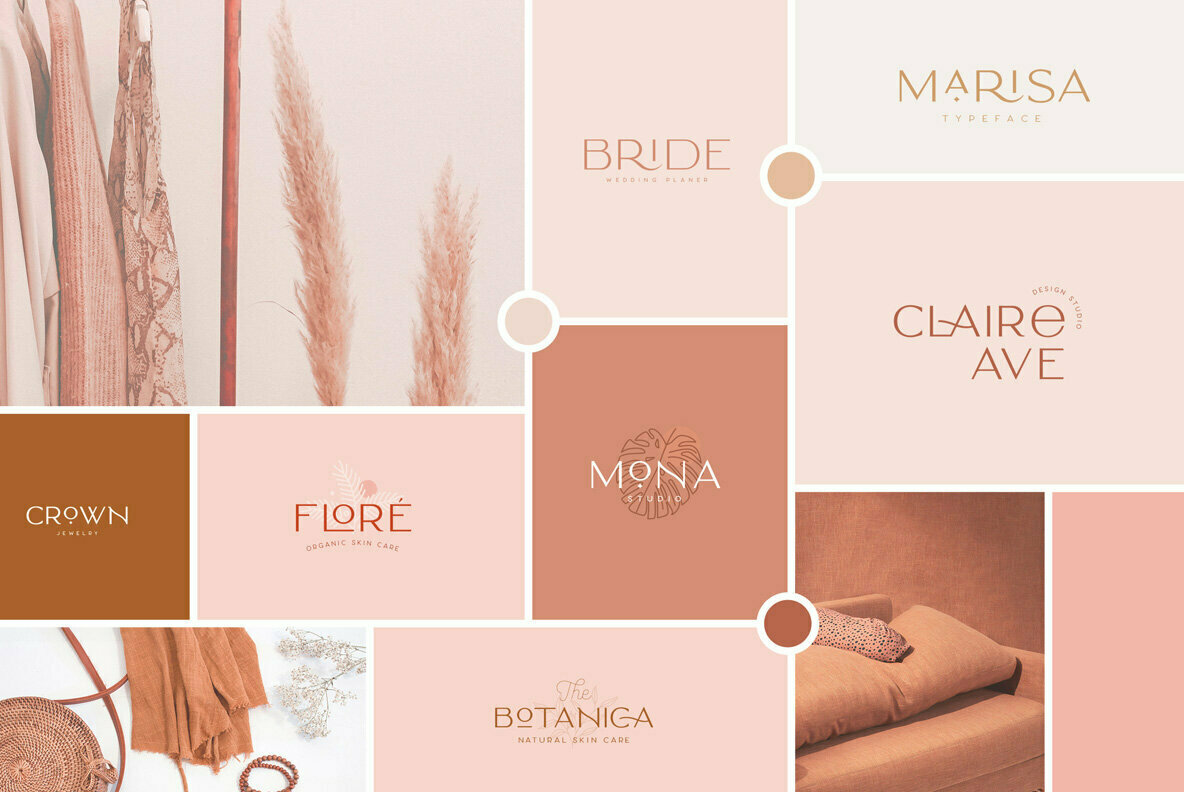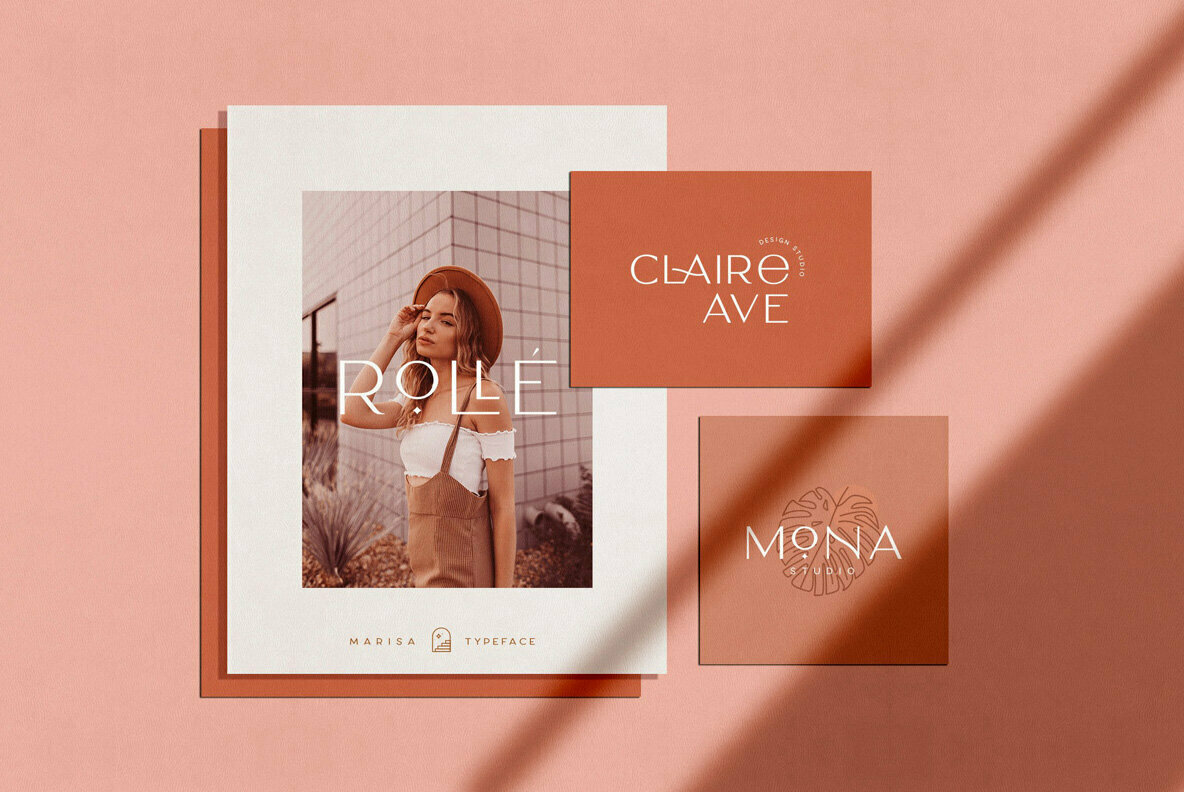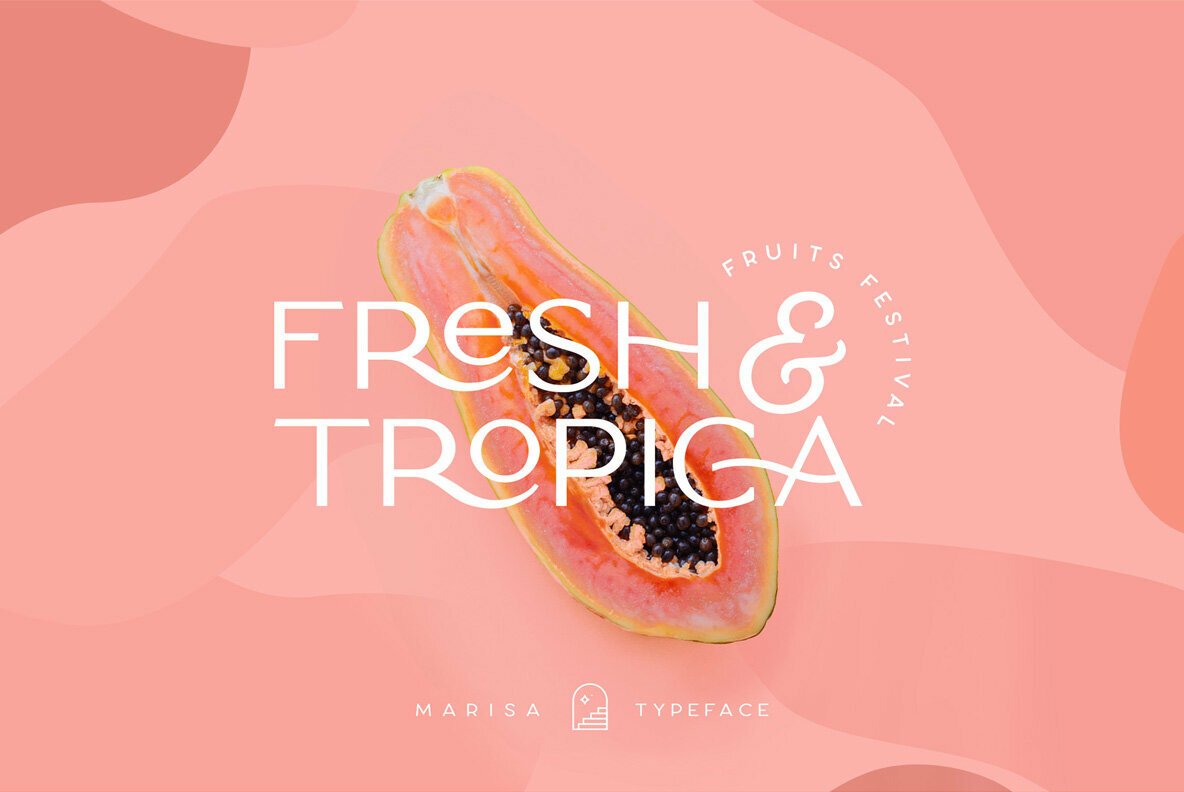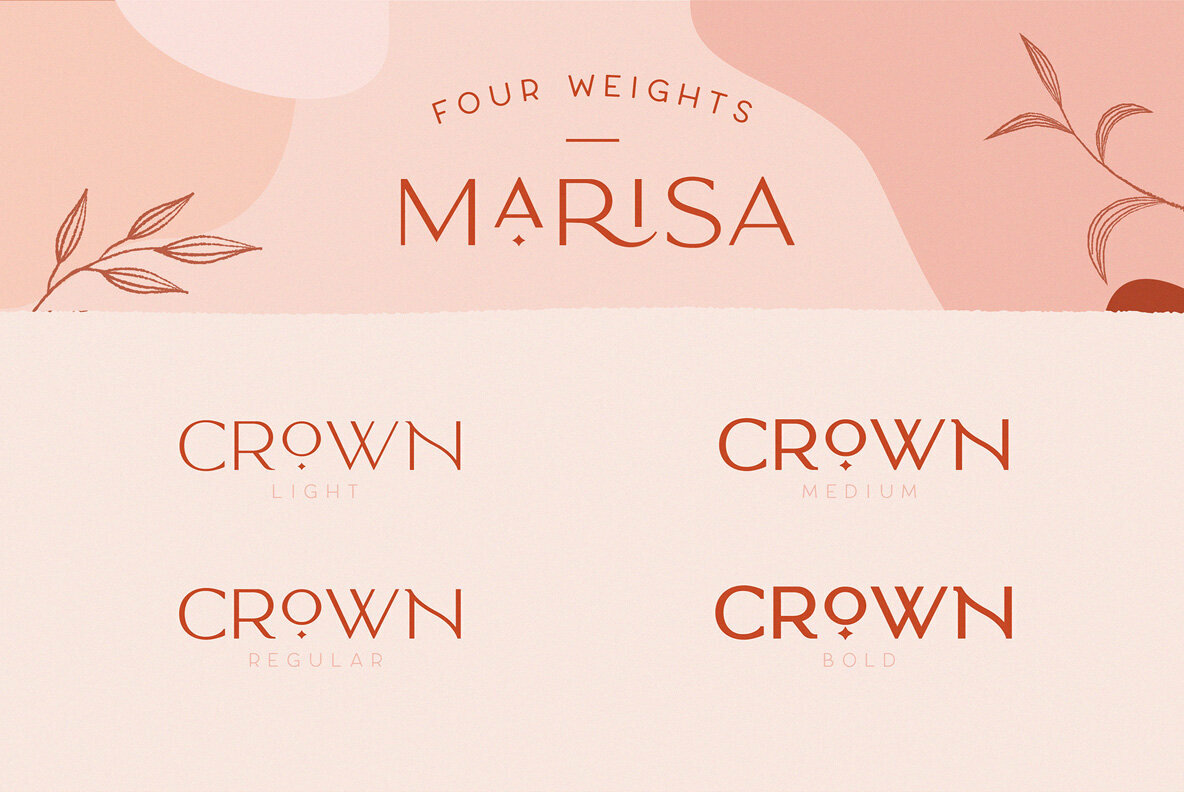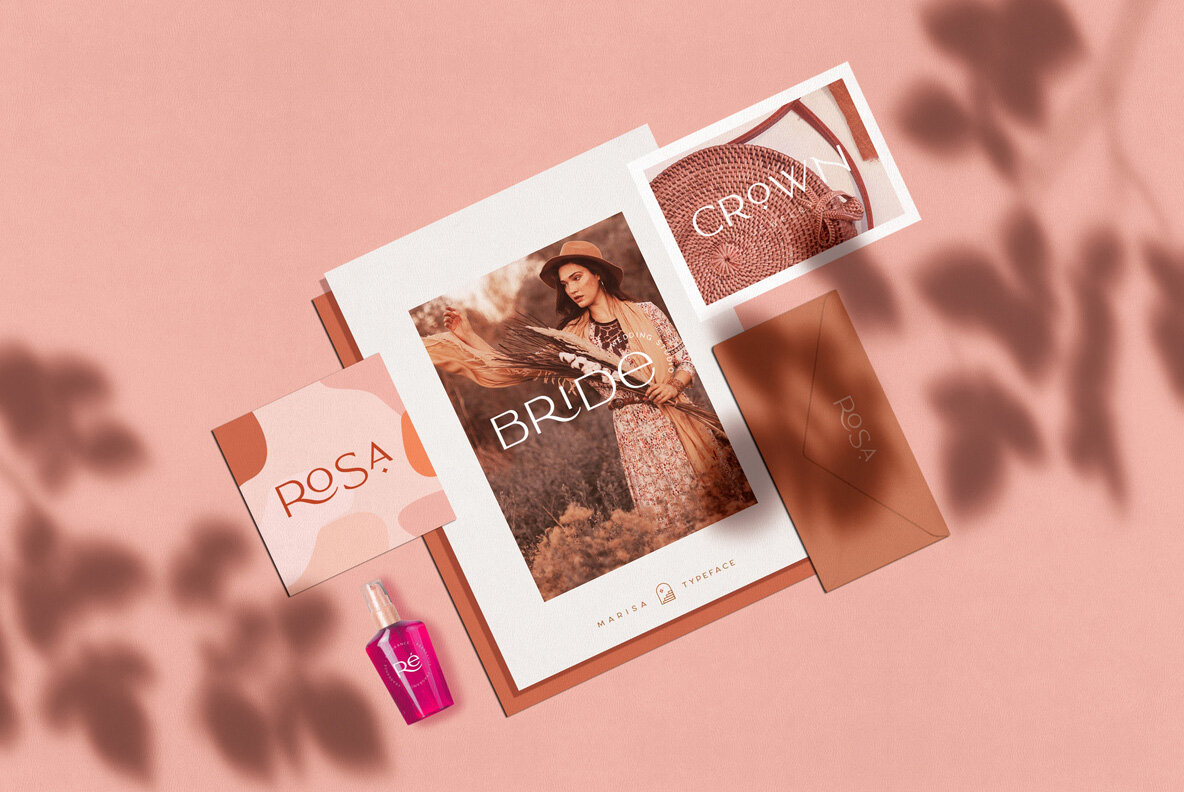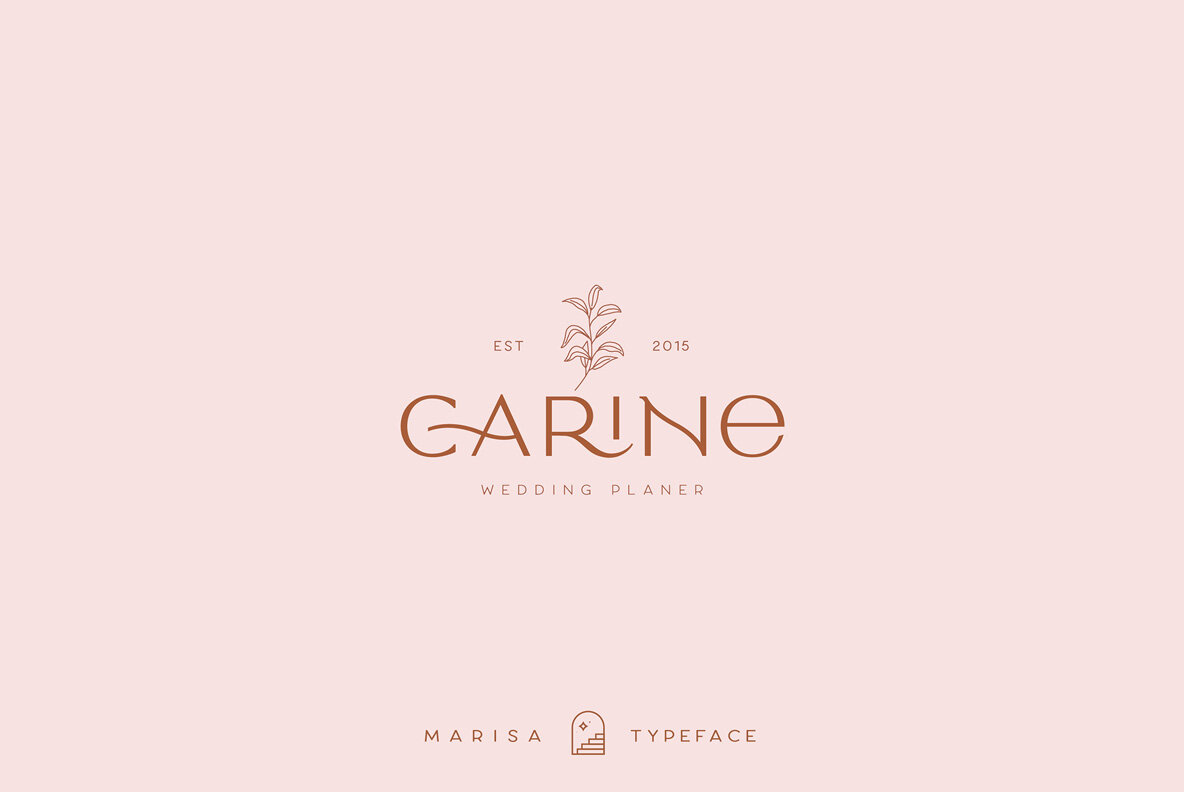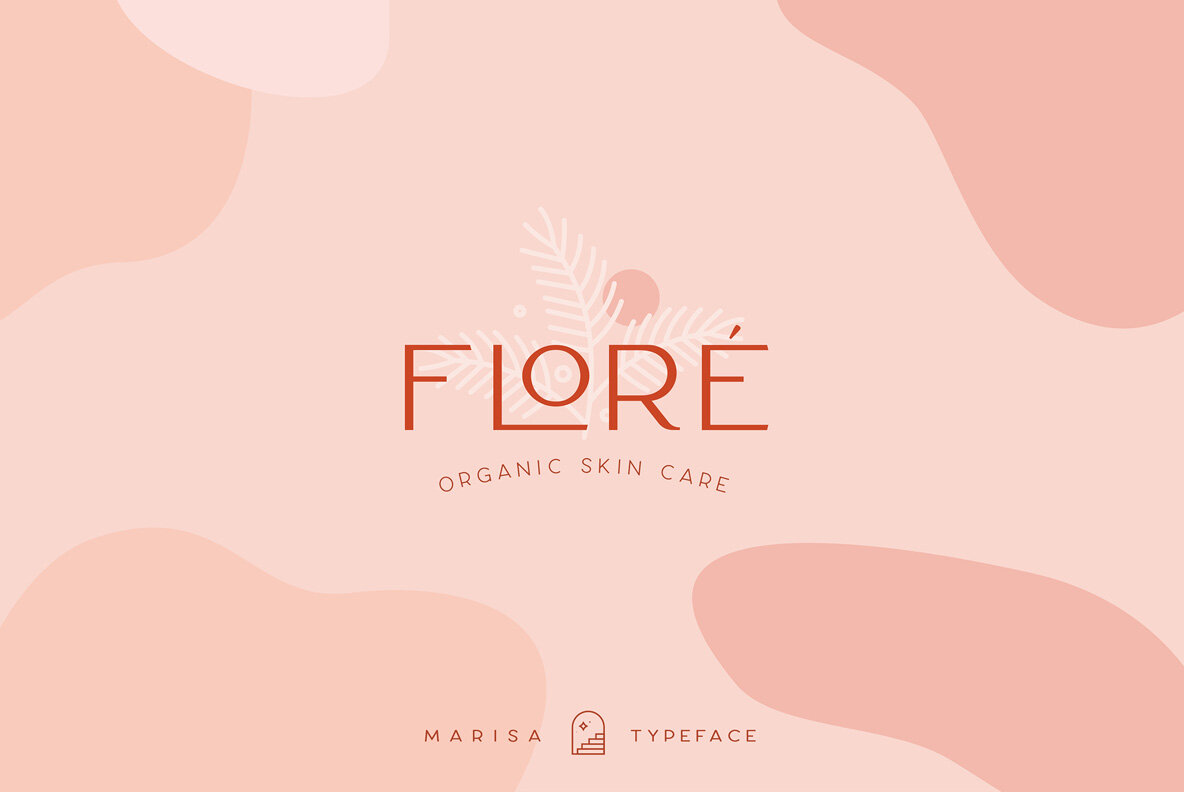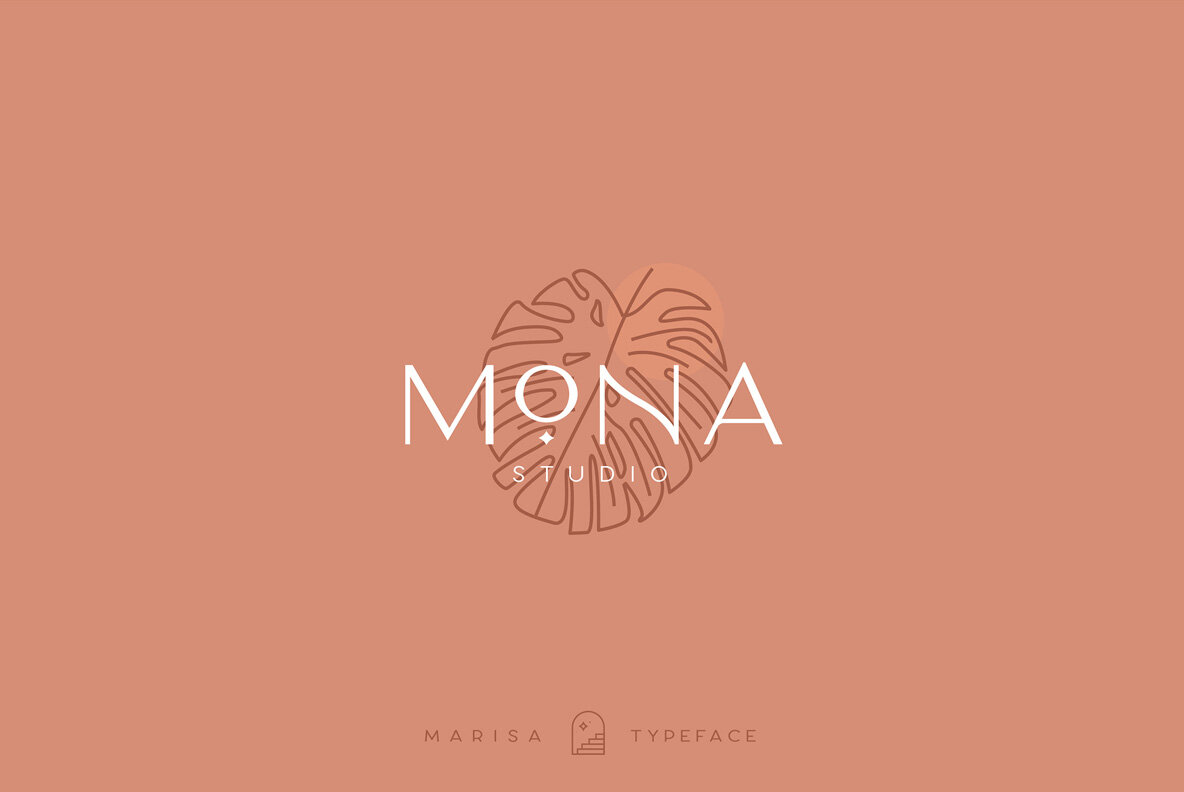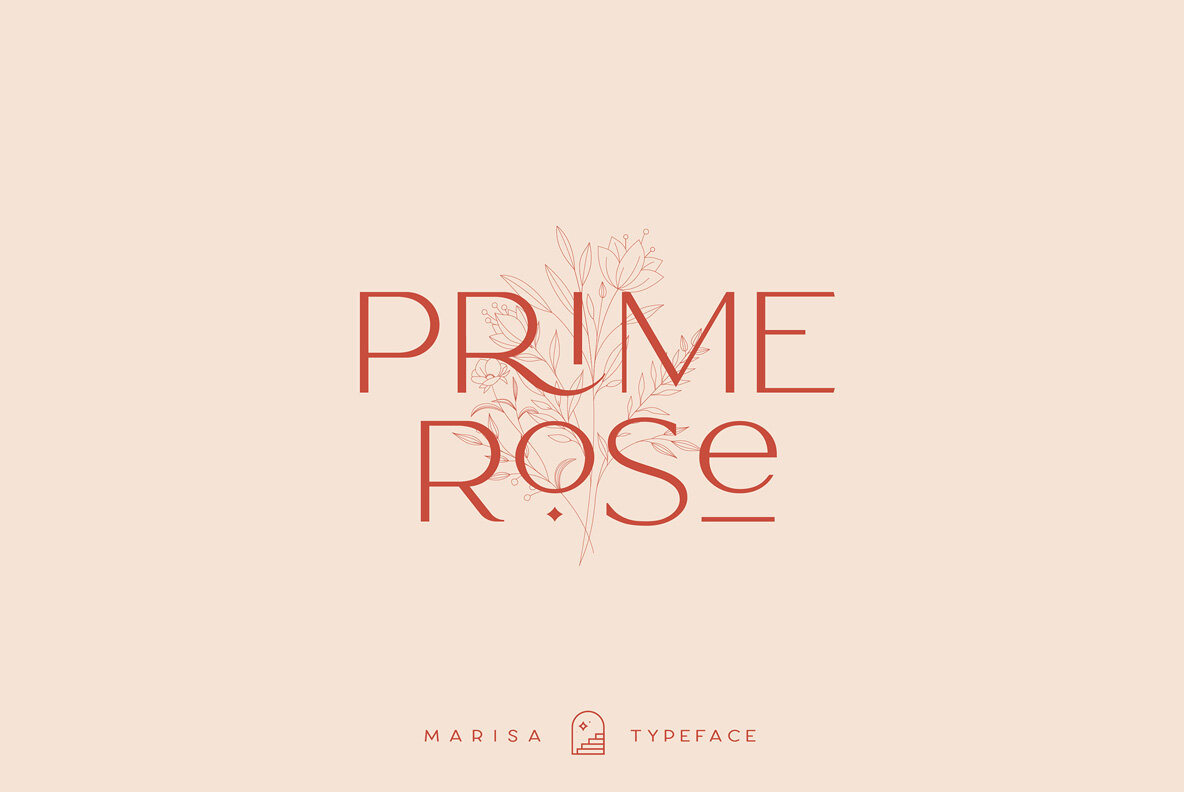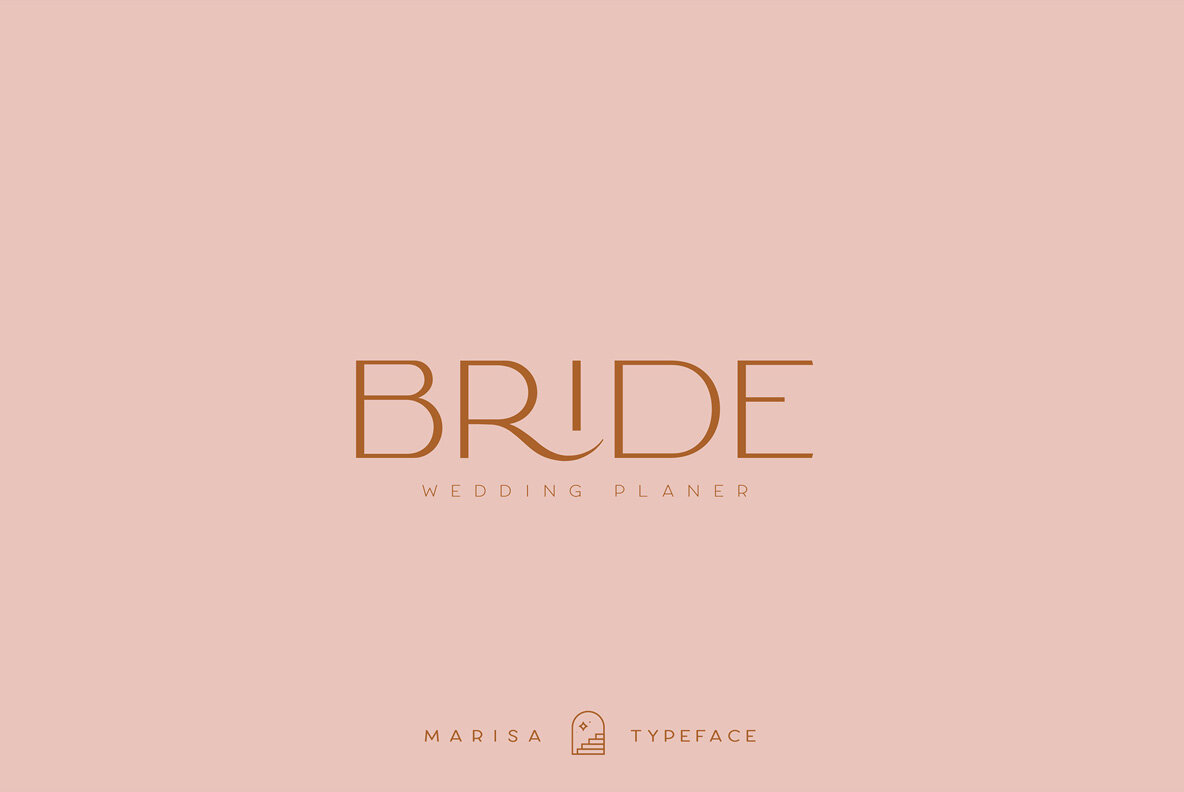
Marisa Sans
Marisa Sans is a minimalist modern elegant vintage font with beautiful ligatures, tons of special alternative glyphs, ornament and multilingual support. It’s a very versatile font that works great in large and small sizes. Classy Marisa is perfect for branding projects, logo design, clothing branding, product packaging, magazine headers, or simply as a stylish text overlay to any background image.
- 4 Weights font (Light, Regular, Medium and Bold)
- All caps
- Stylistic Alternates & Ligatures
- Numerals & Punctuation
- Accented characters
- Multiple Languages Supported